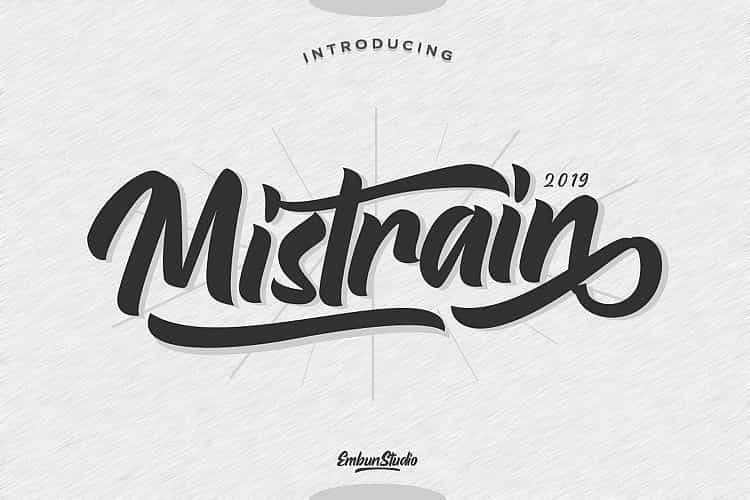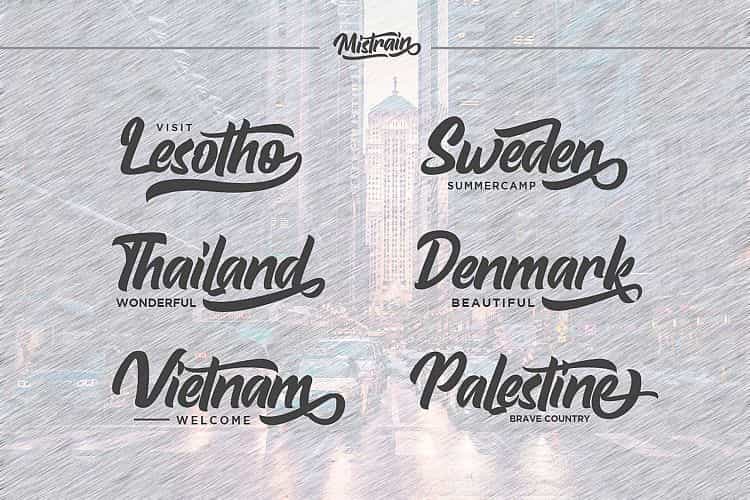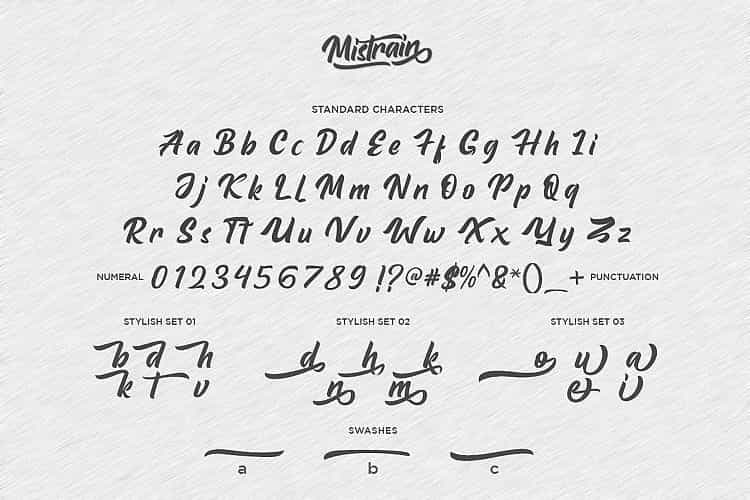
Mistrain is a script that is very courageous and it has got original and genuine swashes. It will take any idea, no matter how creative, to the next level.